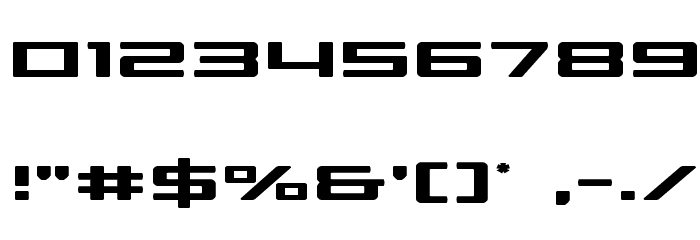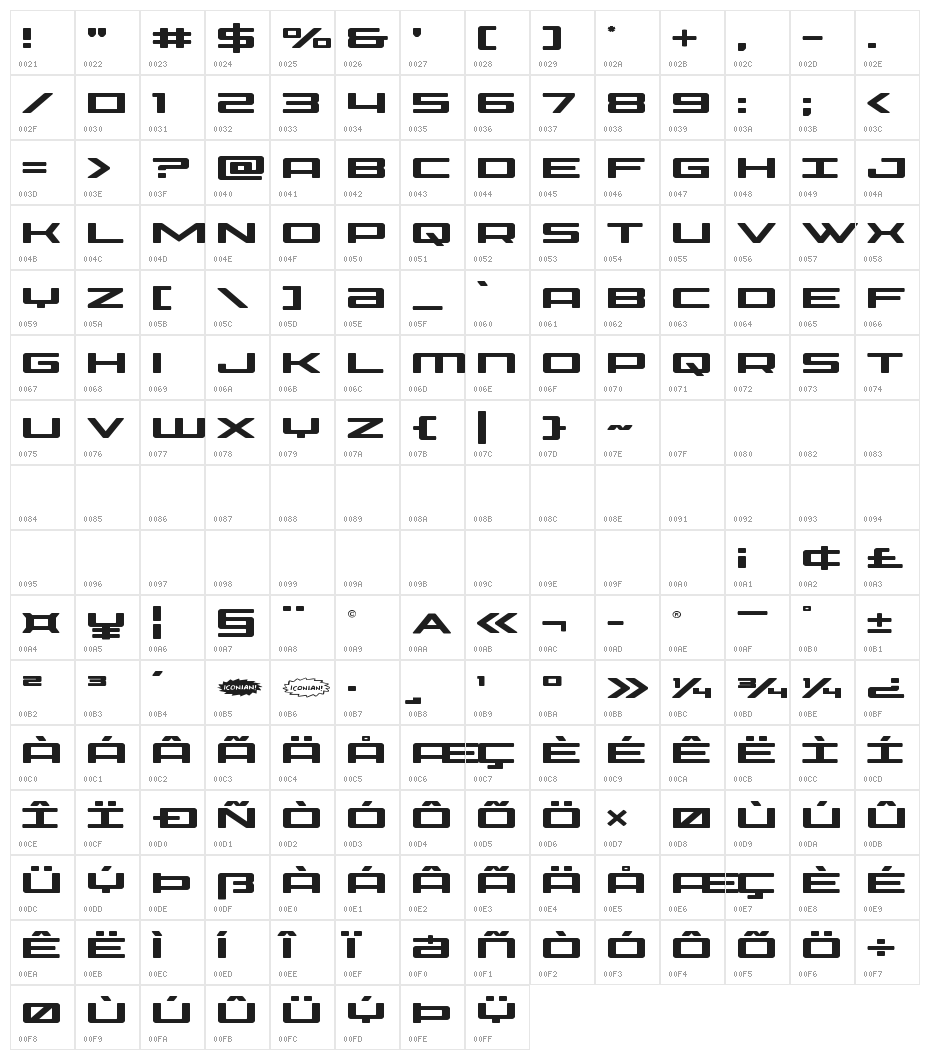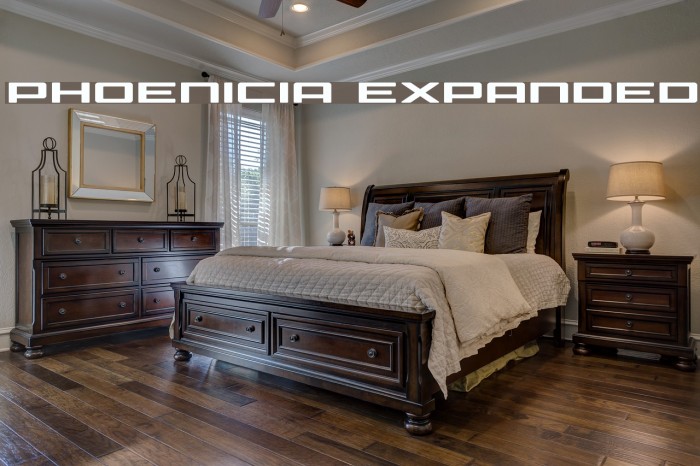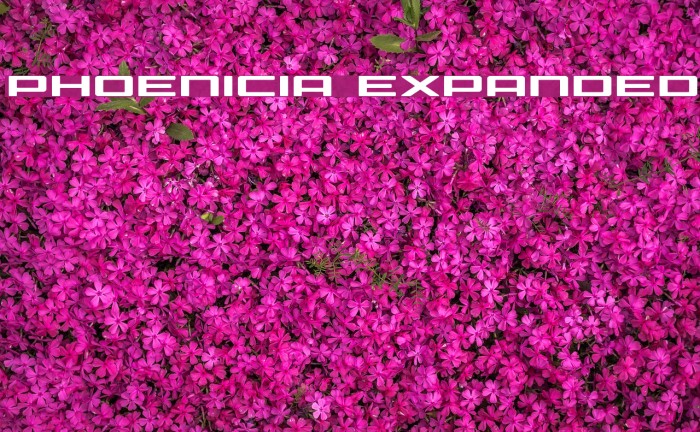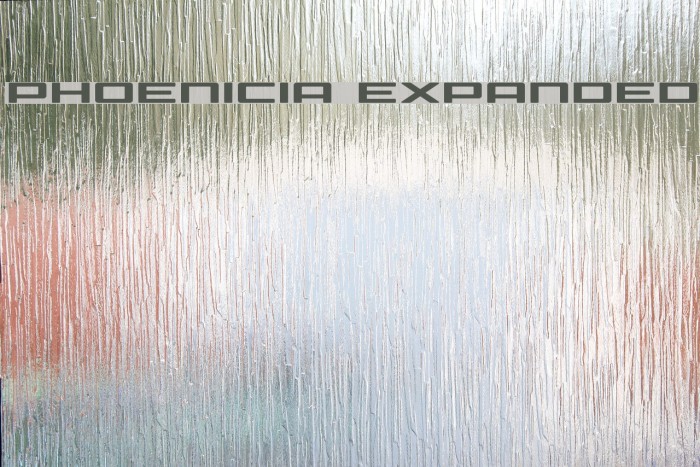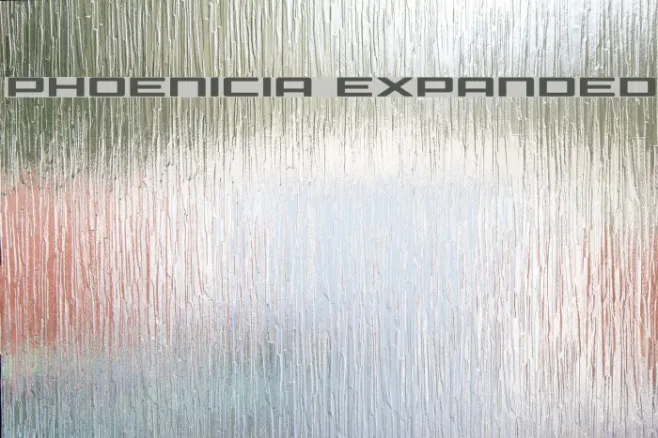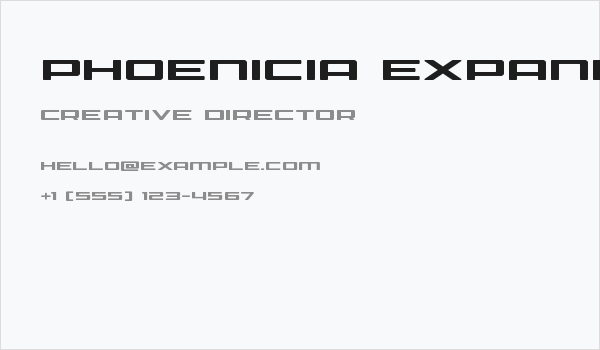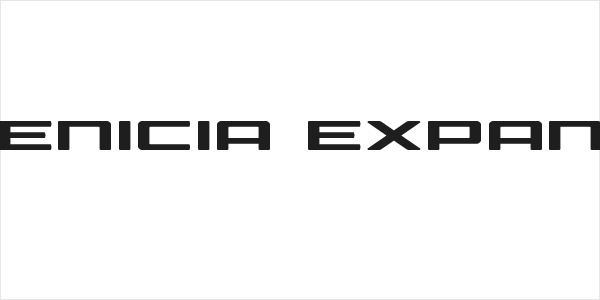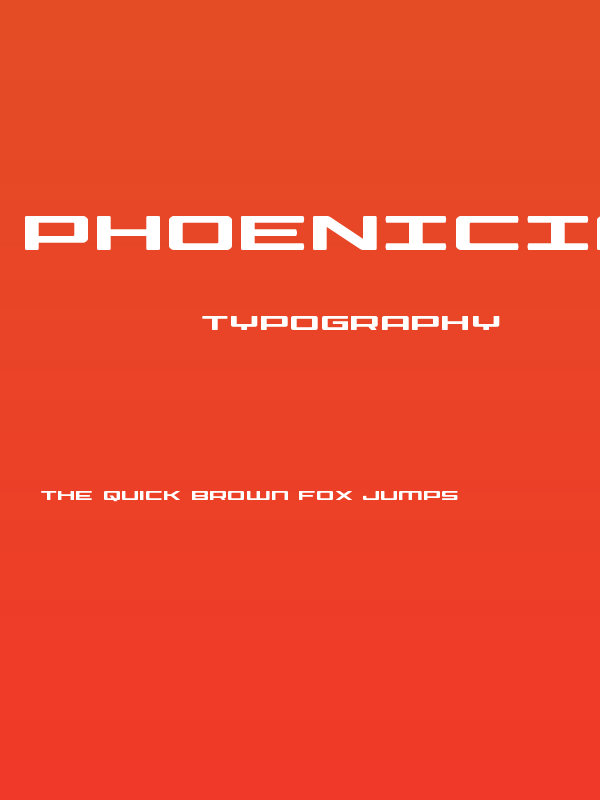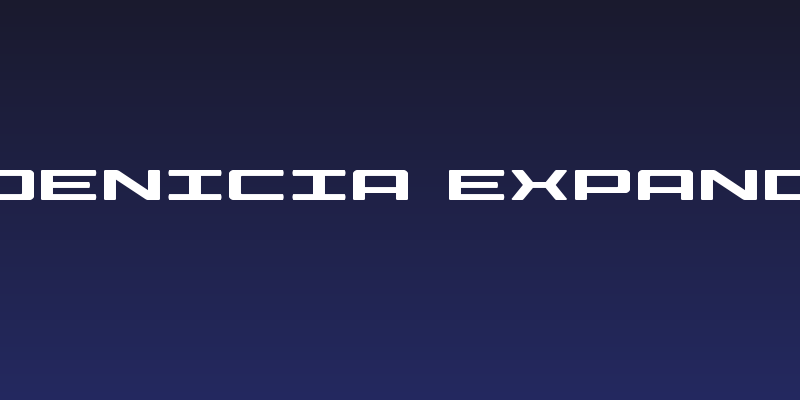
Phoenicia Expanded Font
Phoenicia Expanded Description
This font features a bold, geometric style with a futuristic and modern aesthetic. The characters are constructed with straight lines and sharp angles, giving it a technical and digital appearance. The uppercase and lowercase letters maintain a consistent height, contributing to a uniform look. The numerals and special characters are designed to match the angular and structured form of the alphabet, ensuring coherence across all glyphs. This font's expanded width allows for a strong visual impact, making it suitable for attention-grabbing designs.
| Proposed Projects | Ideal for technology branding, sci-fi themed projects, video game interfaces, and modern advertising campaigns. |